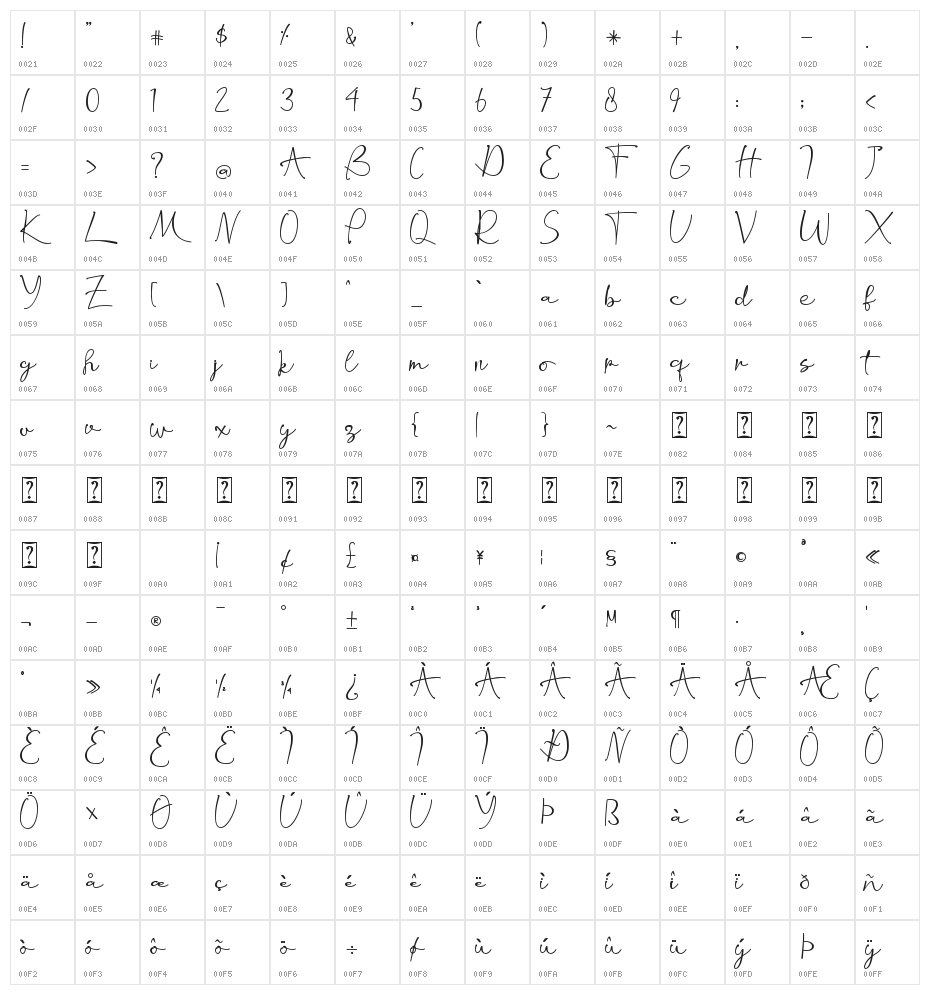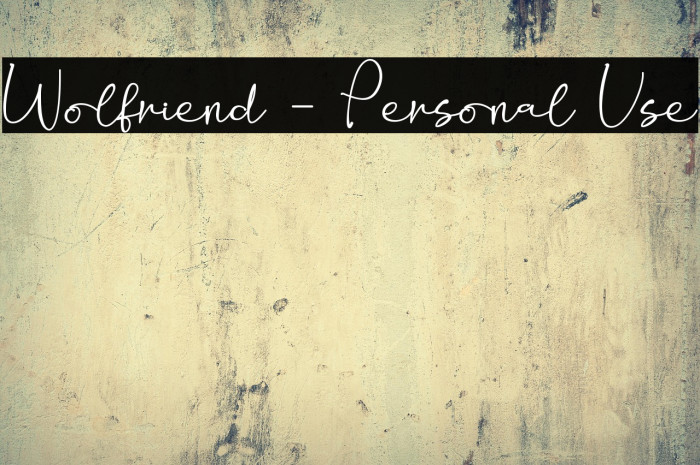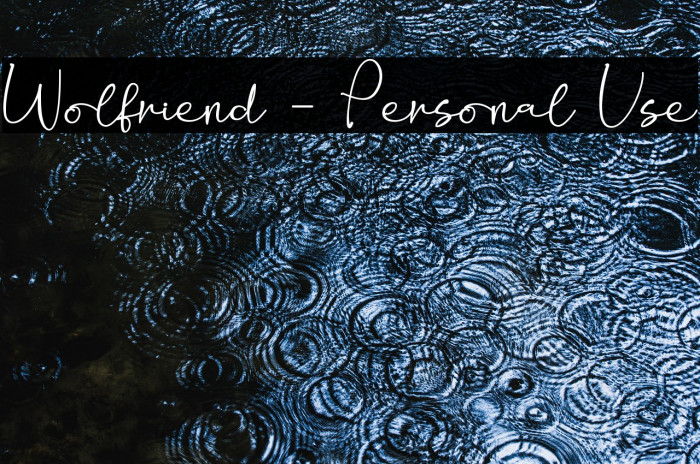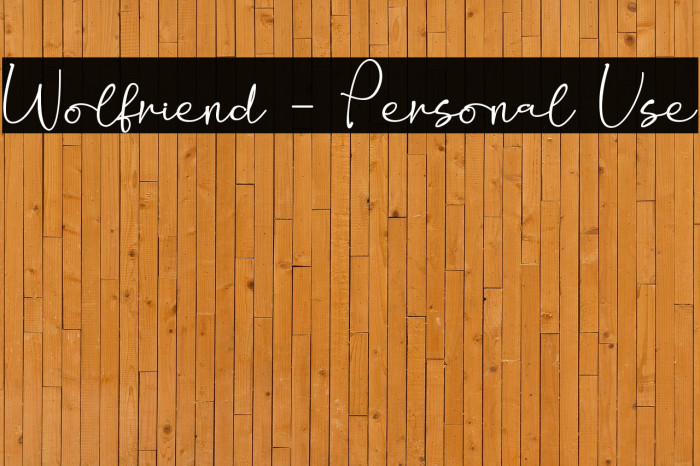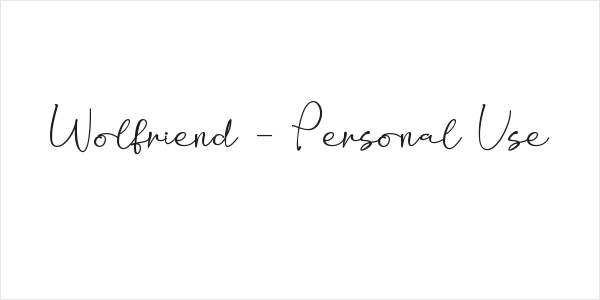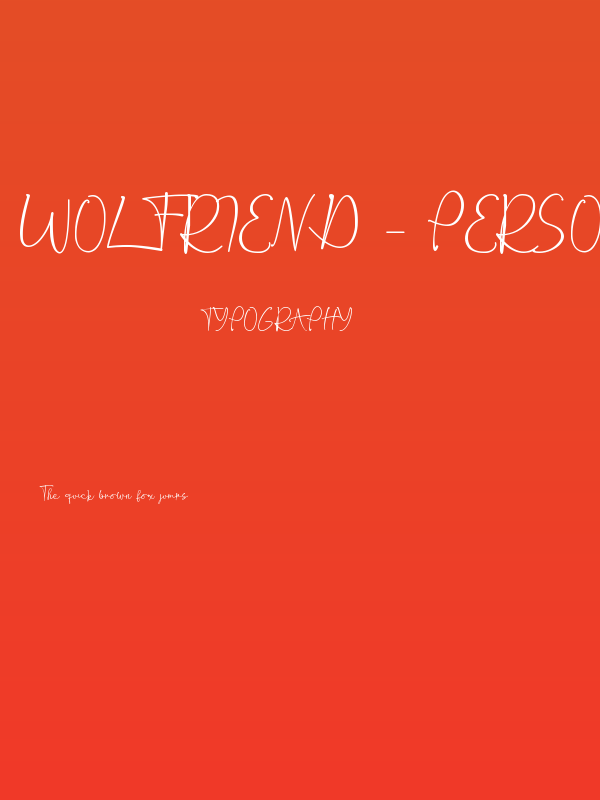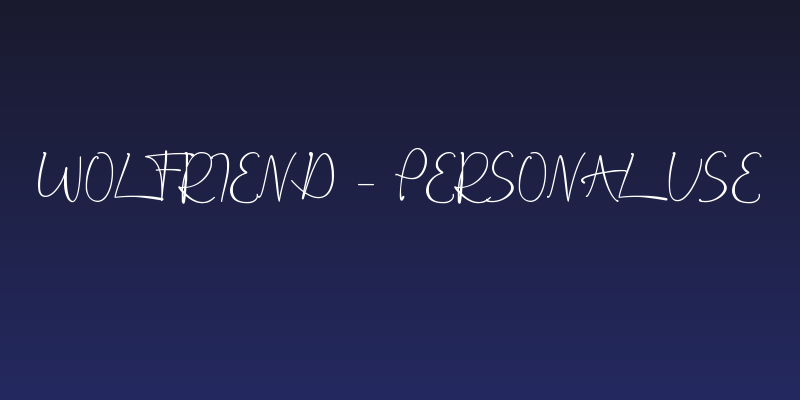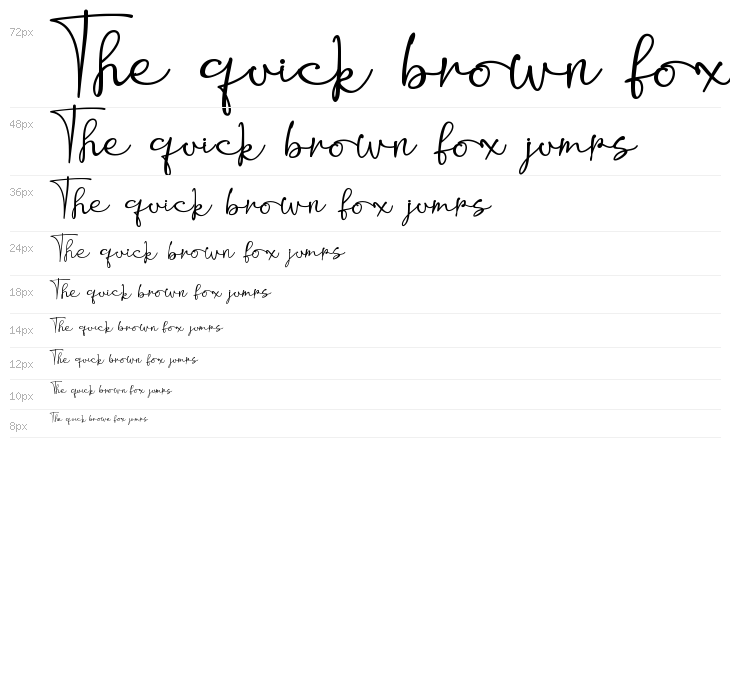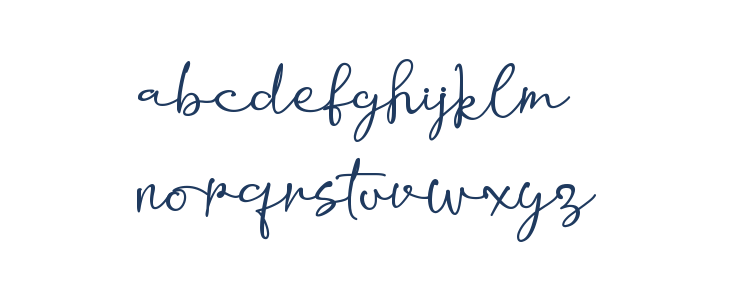
Wolfriend - Personal Use Font
Wolfriend - Personal Use Description
This font features a playful and whimsical handwritten style with a casual elegance. The uppercase letters are tall and slightly narrow, with a consistent stroke width that gives them a clean and modern appearance. The lowercase letters maintain a similar style, with smooth curves and a slightly slanted orientation that adds to the font's dynamic feel. The numerals are clear and legible, matching the overall aesthetic of the alphabet. Special characters are thoughtfully designed, maintaining the font's cohesive look. This font is perfect for projects that require a personal touch, such as invitations, greeting cards, or branding materials.